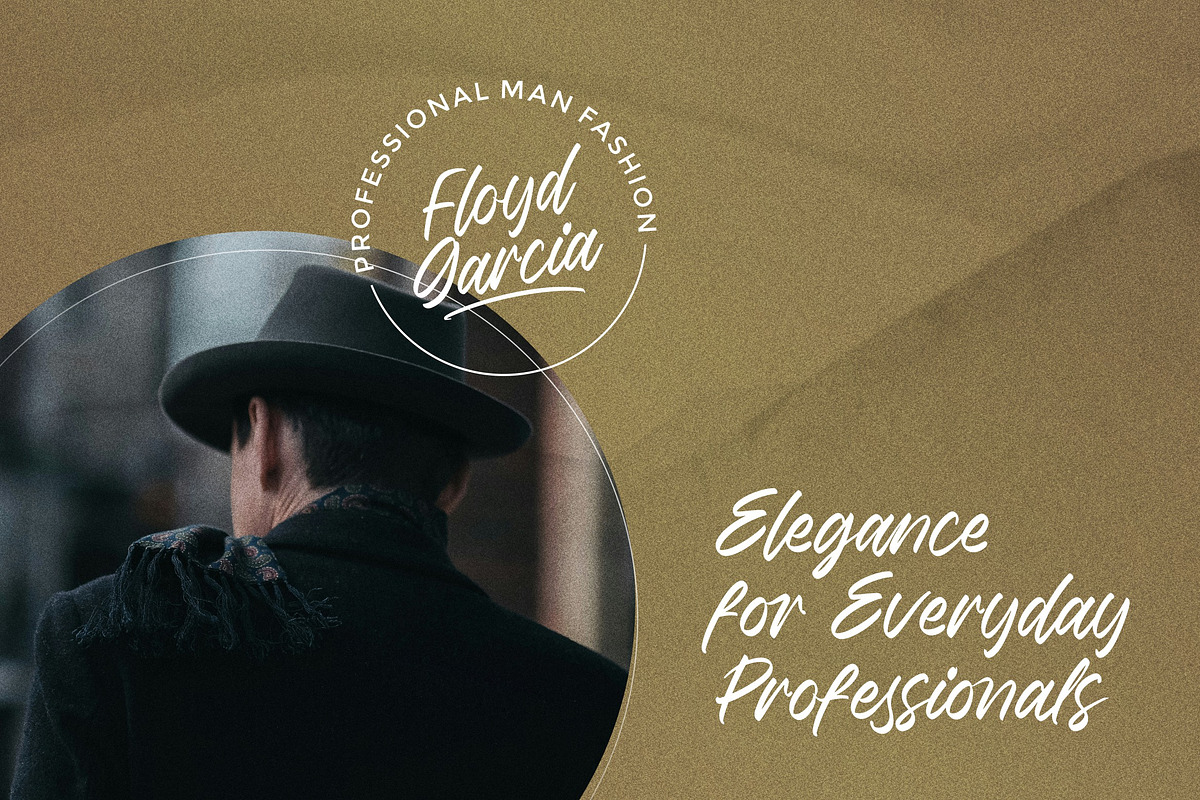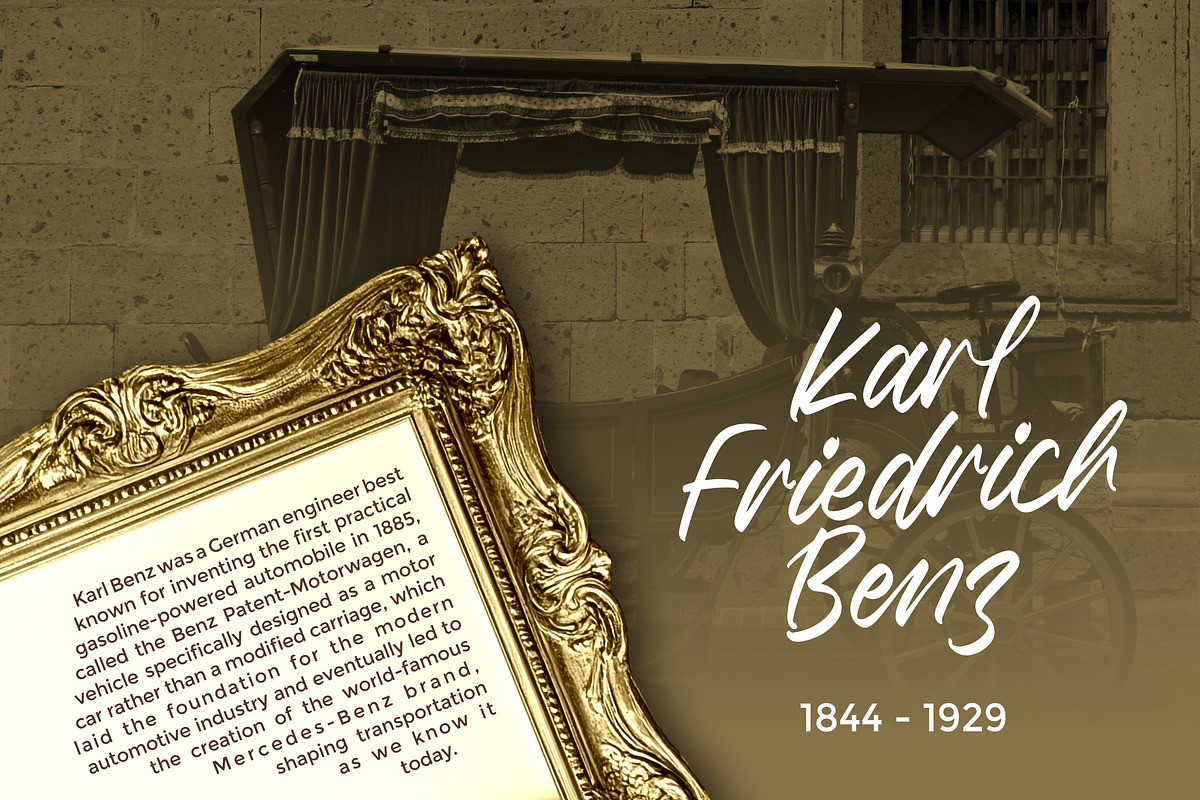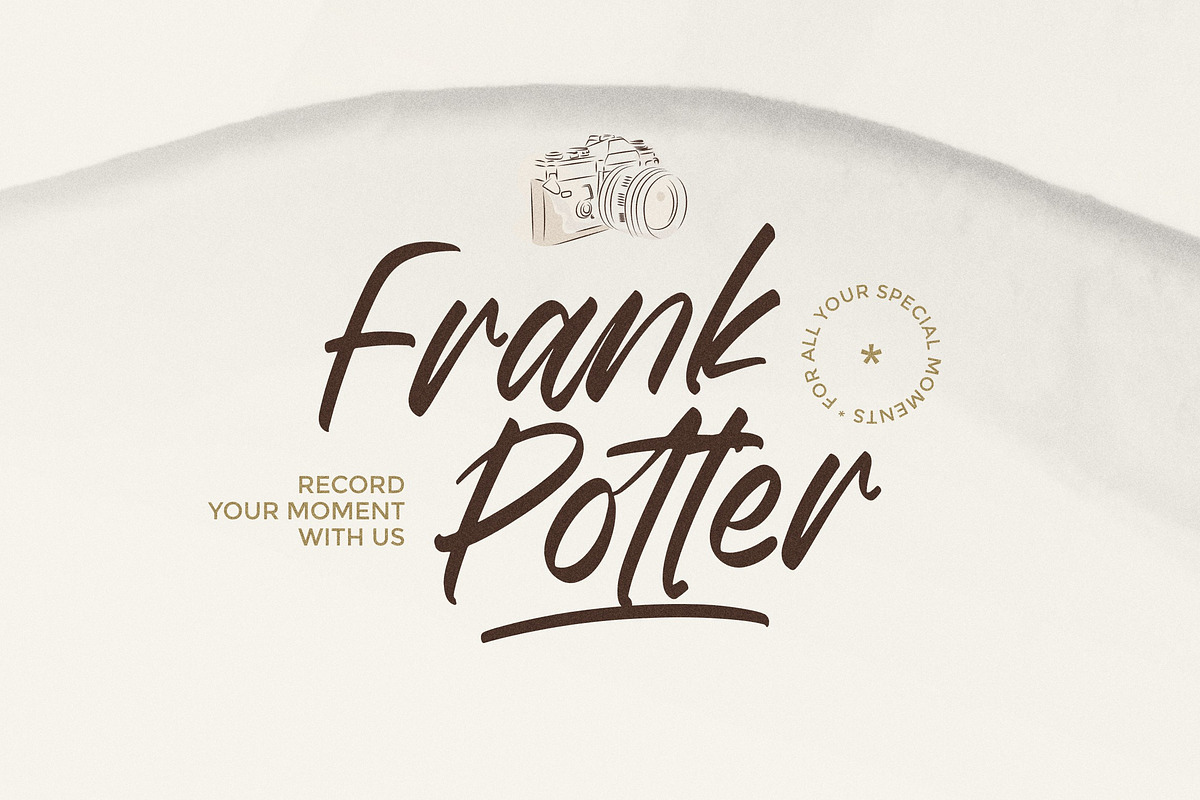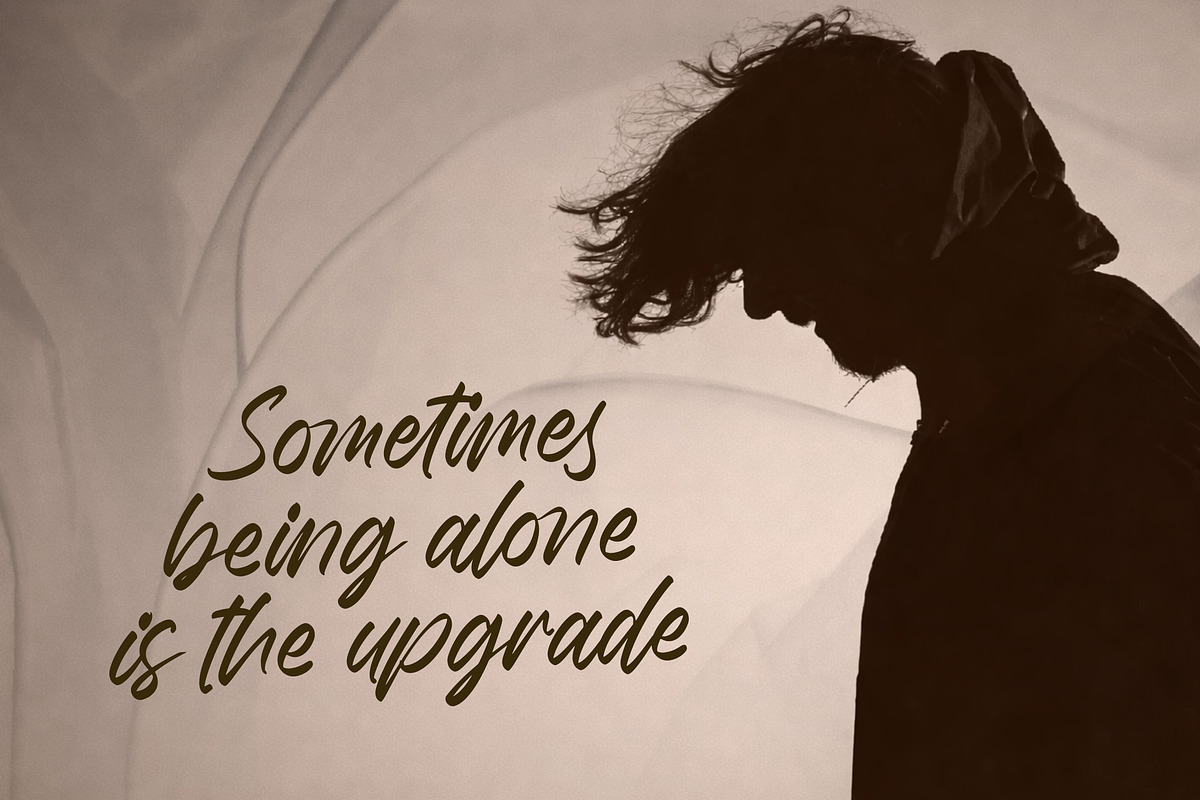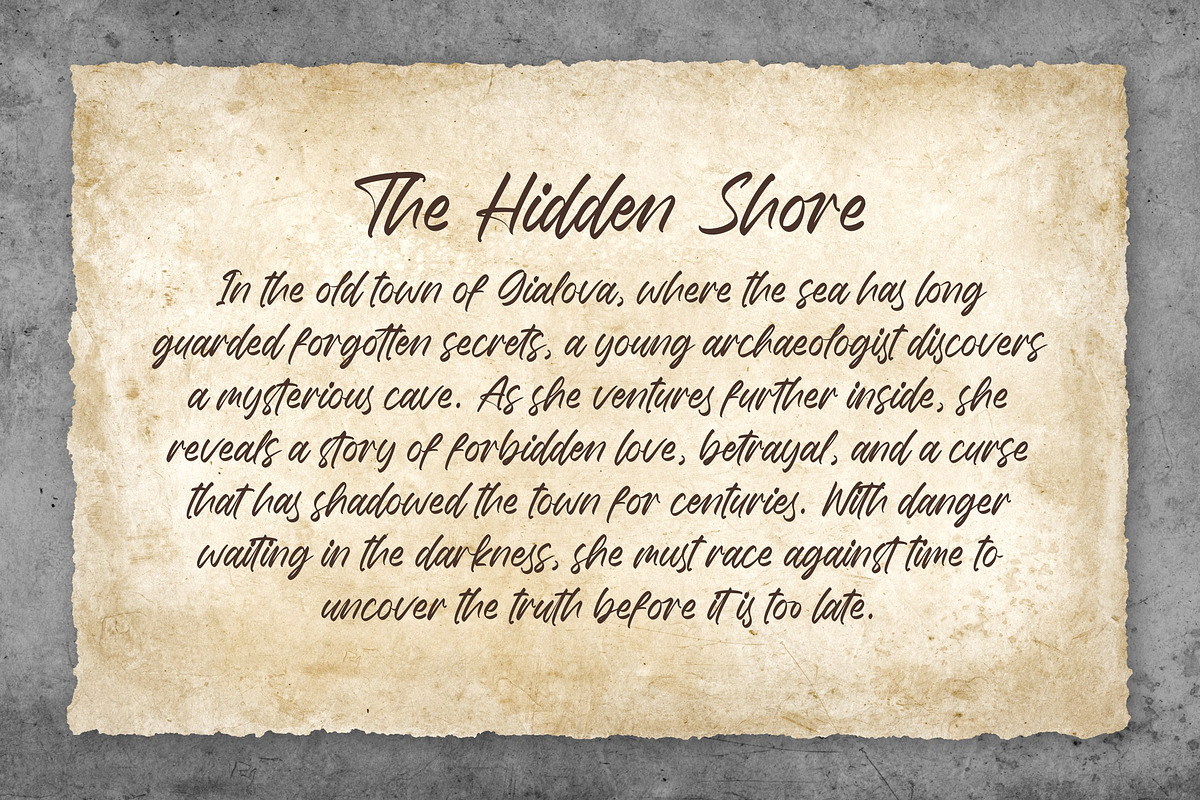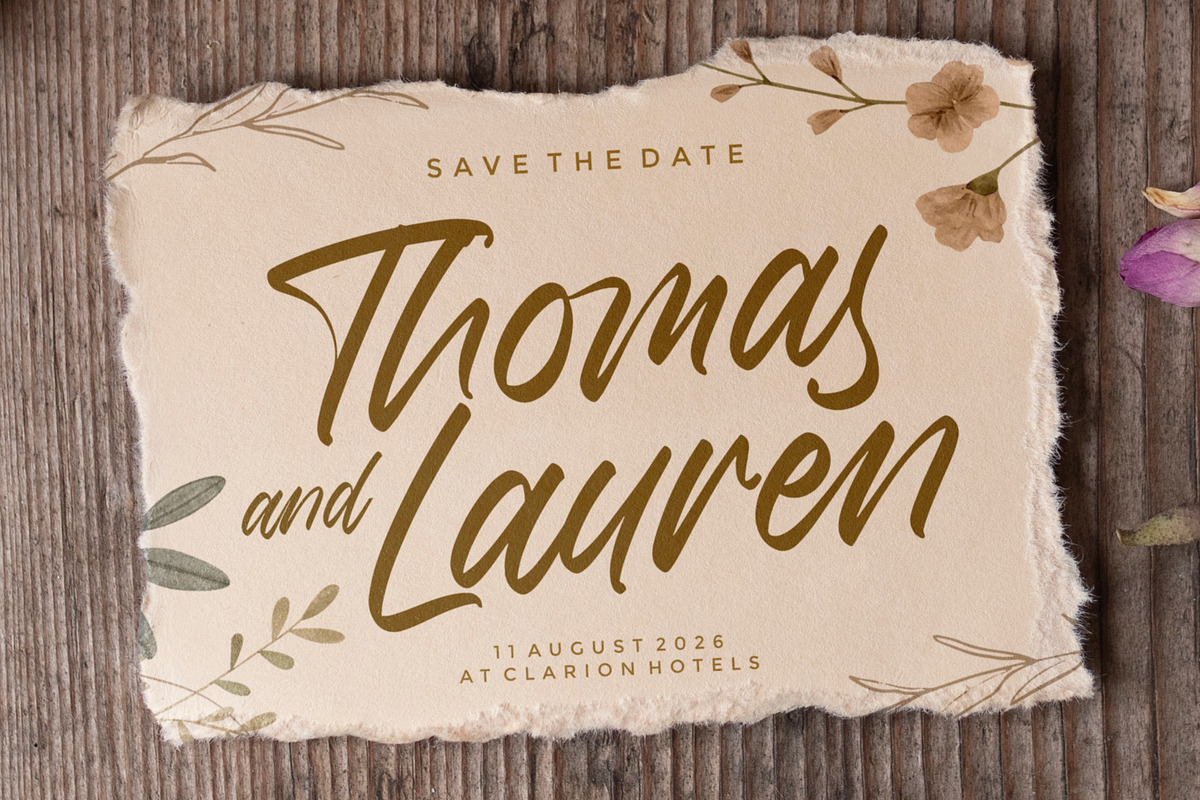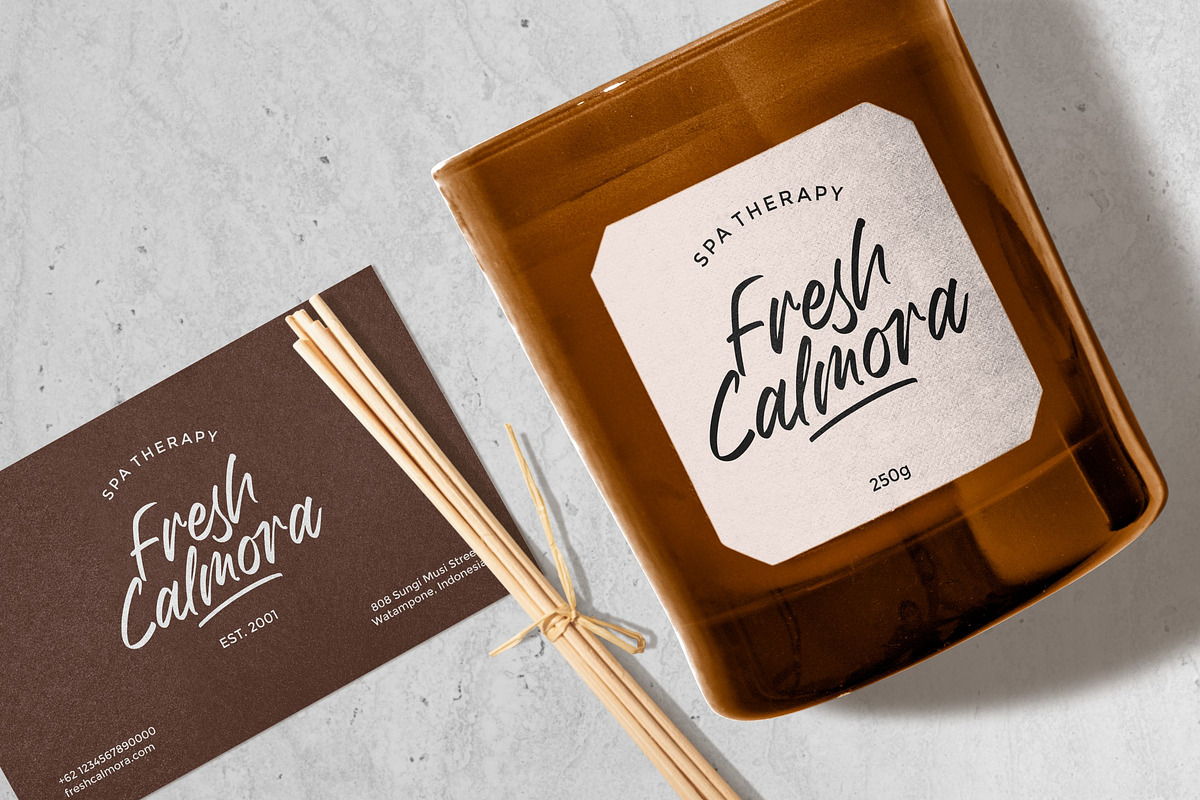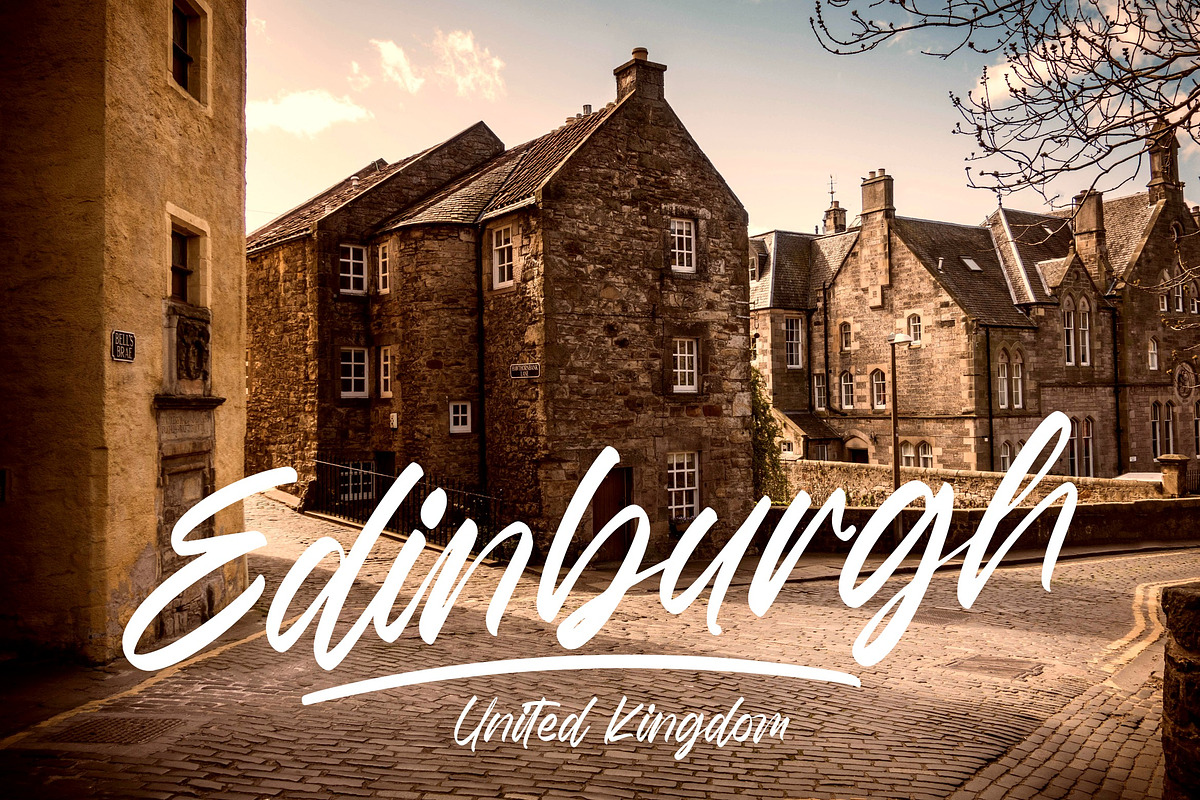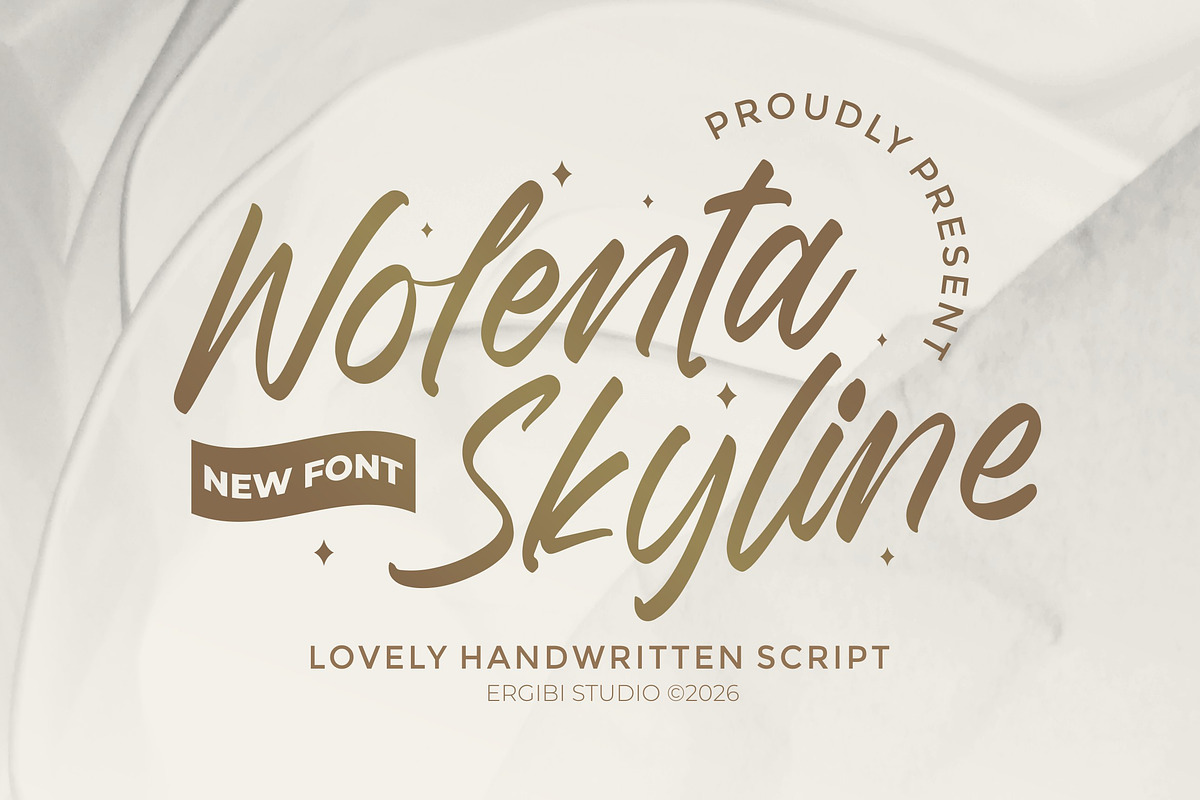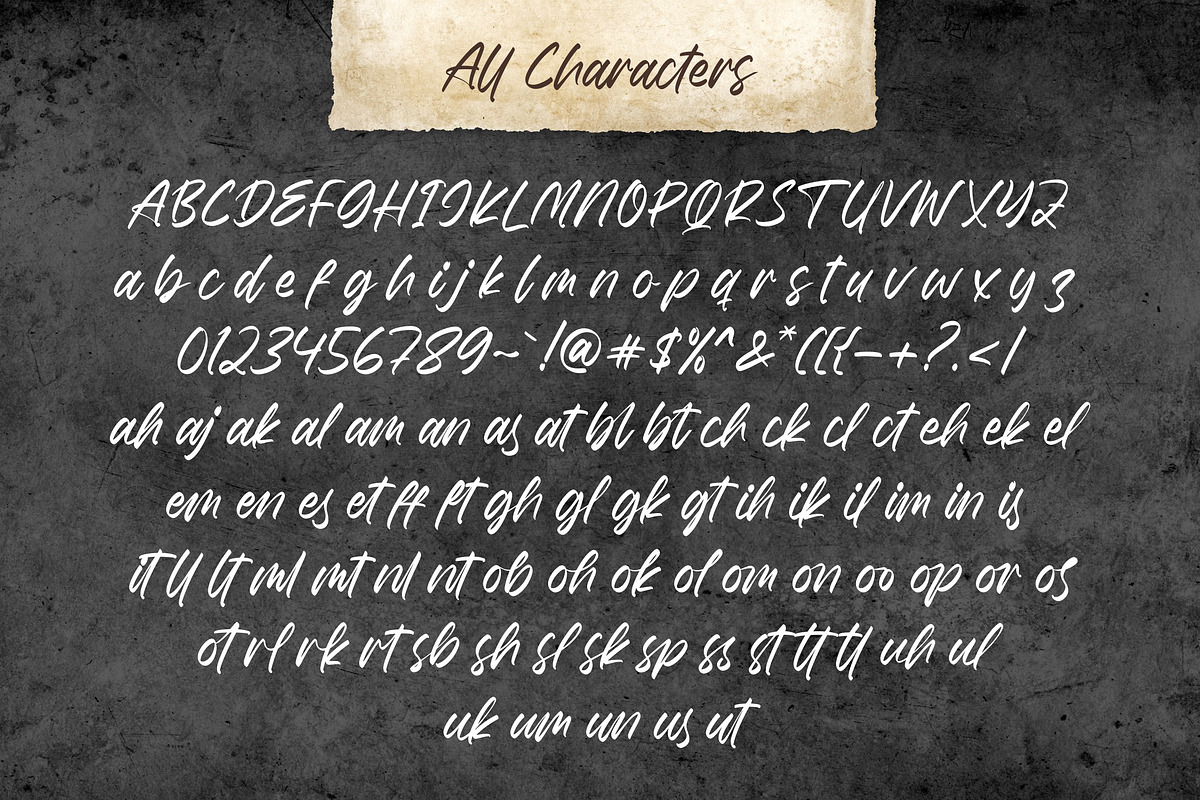
Wolenta Skyline - Lovely Script
Wolenta Skyline is a lovely handwritten script font that combines elegance with a natural, flowing rhythm. Its smooth curves and well-balanced strokes create a soft yet confident appearance, making it perfect for designs that aim to feel warm, refined, and visually appealing.
Ideal for branding, logos, invitations, packaging, and social media content, this font brings a graceful and modern handwritten touch. Each letter carries a subtle charm and fluid movement, adding personality and sophistication to any creative project.